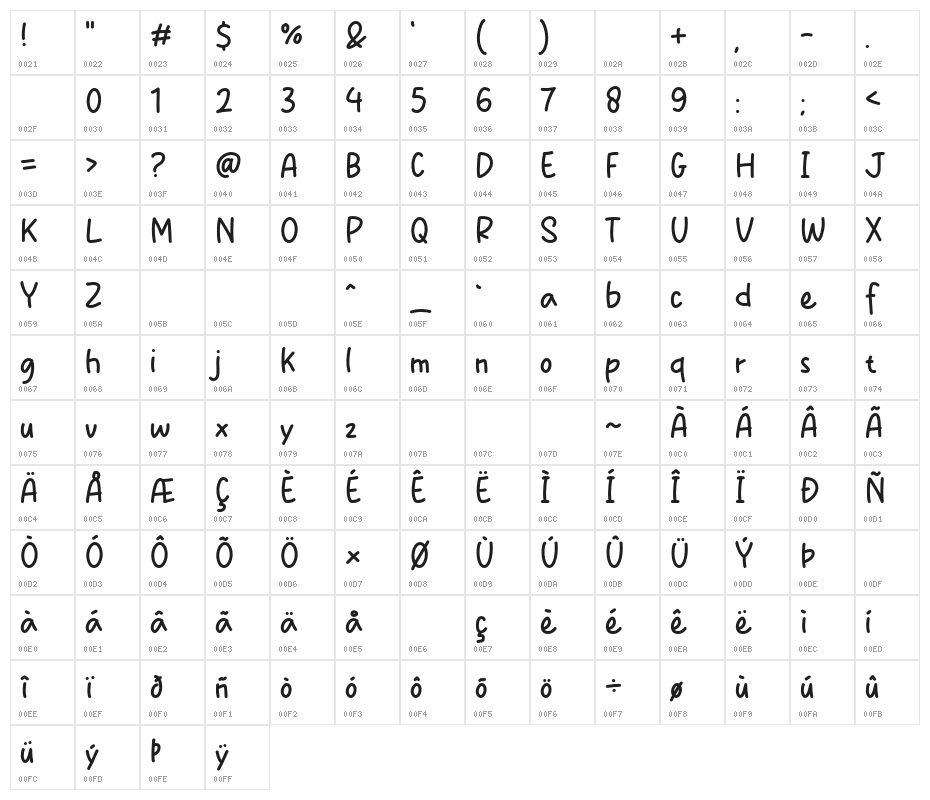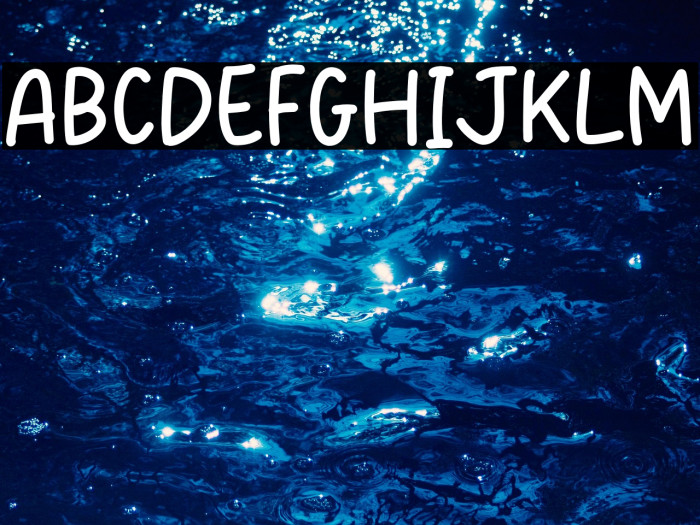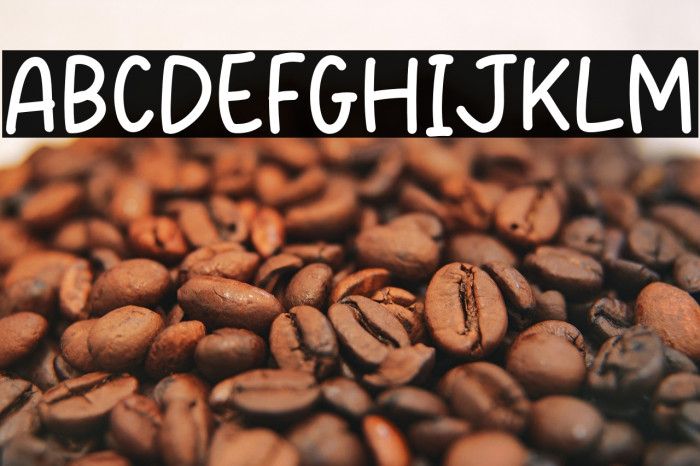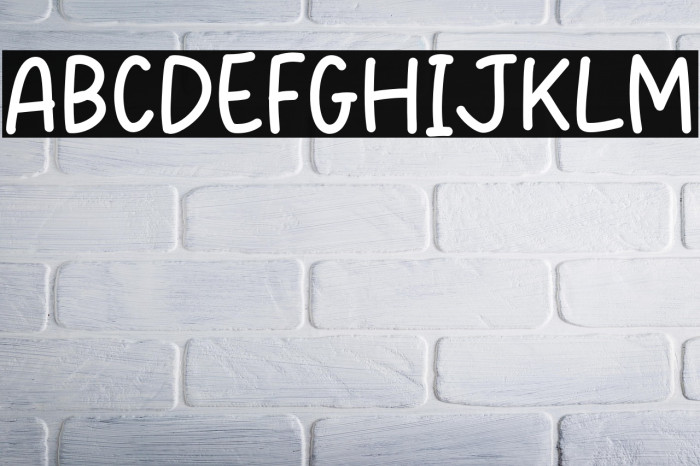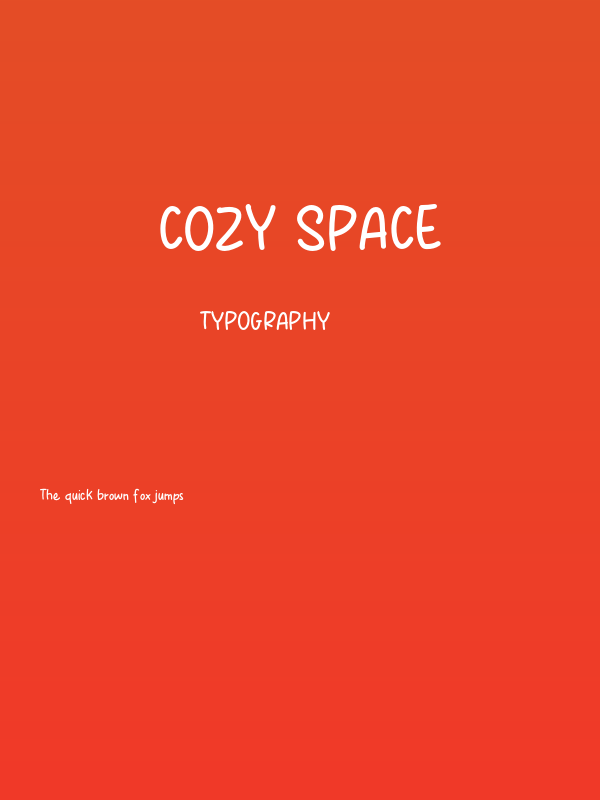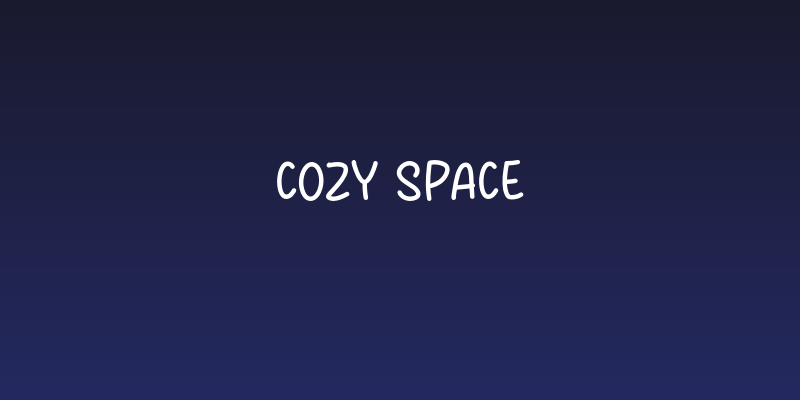
Cozy Space Font
Cozy Space Description
This font exudes a playful and casual vibe with its handwritten style. The characters are rounded and slightly irregular, giving it a friendly and approachable appearance. The uppercase and lowercase letters maintain a consistent flow, while the numerals and special characters complement the overall design. Its informal nature makes it ideal for projects that require a personal touch, such as invitations, greeting cards, or children's books. The font's legibility is enhanced by its clear and distinct letterforms, making it suitable for both print and digital media.
| Proposed Projects | Ideal for invitations, greeting cards, children's books, and casual branding. |